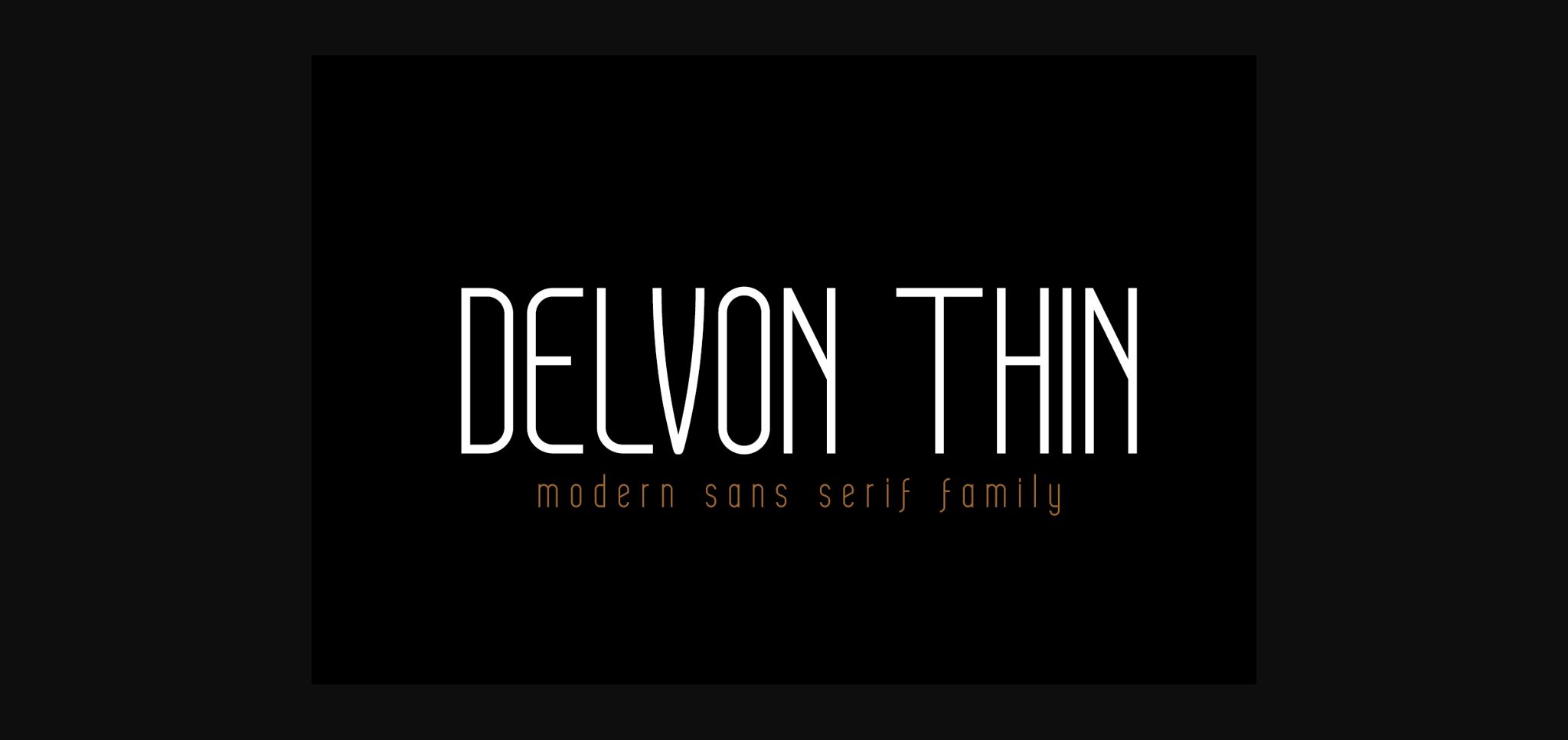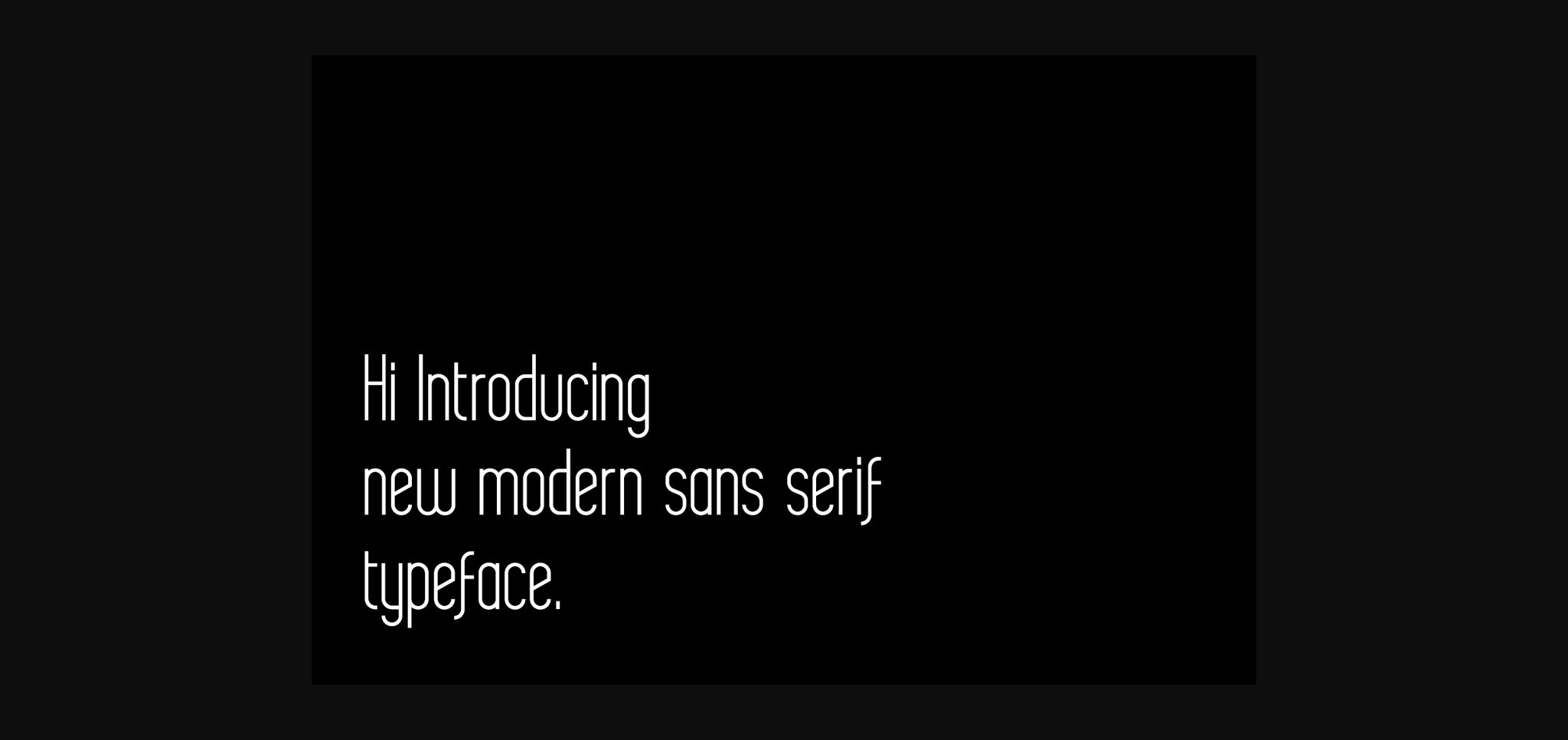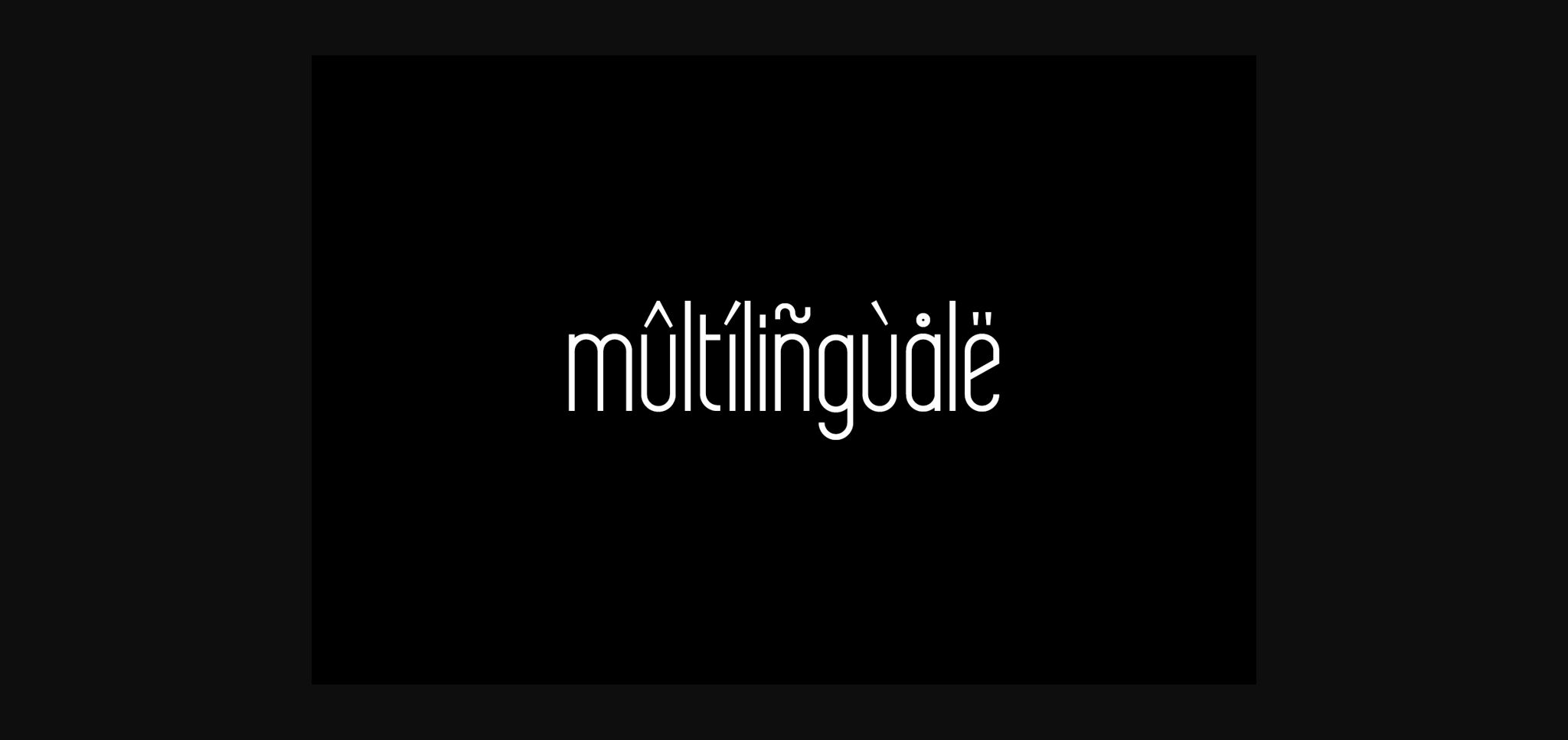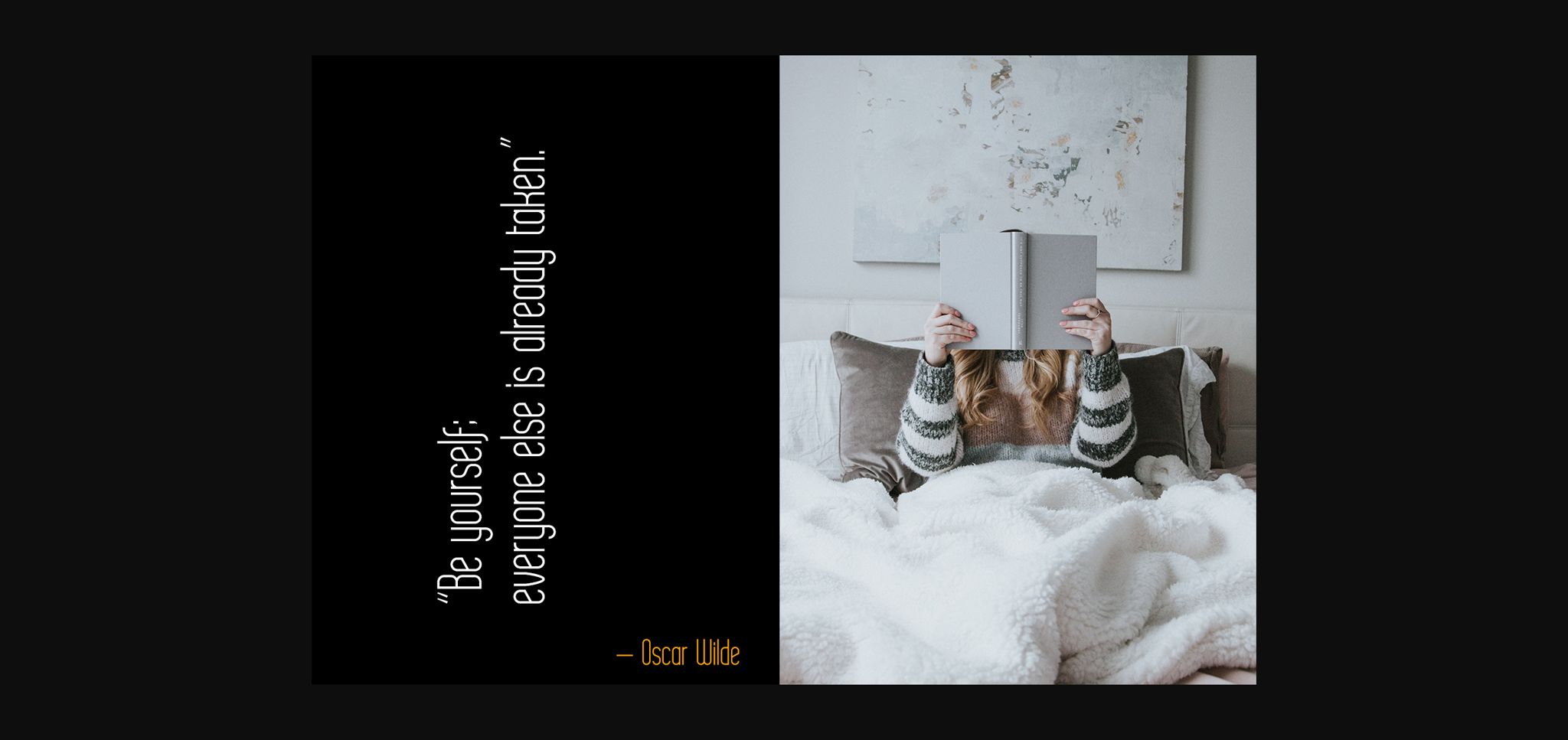
Delvon Thin Font
About Delvon Thin Font
Delvon Thin is a minimal, yet elegant sans serif font. Suitable to a wide variety of designs due to its neat and simple style, Delvon Thin has the potential to become your favorite go-to font, no matter the occasion.